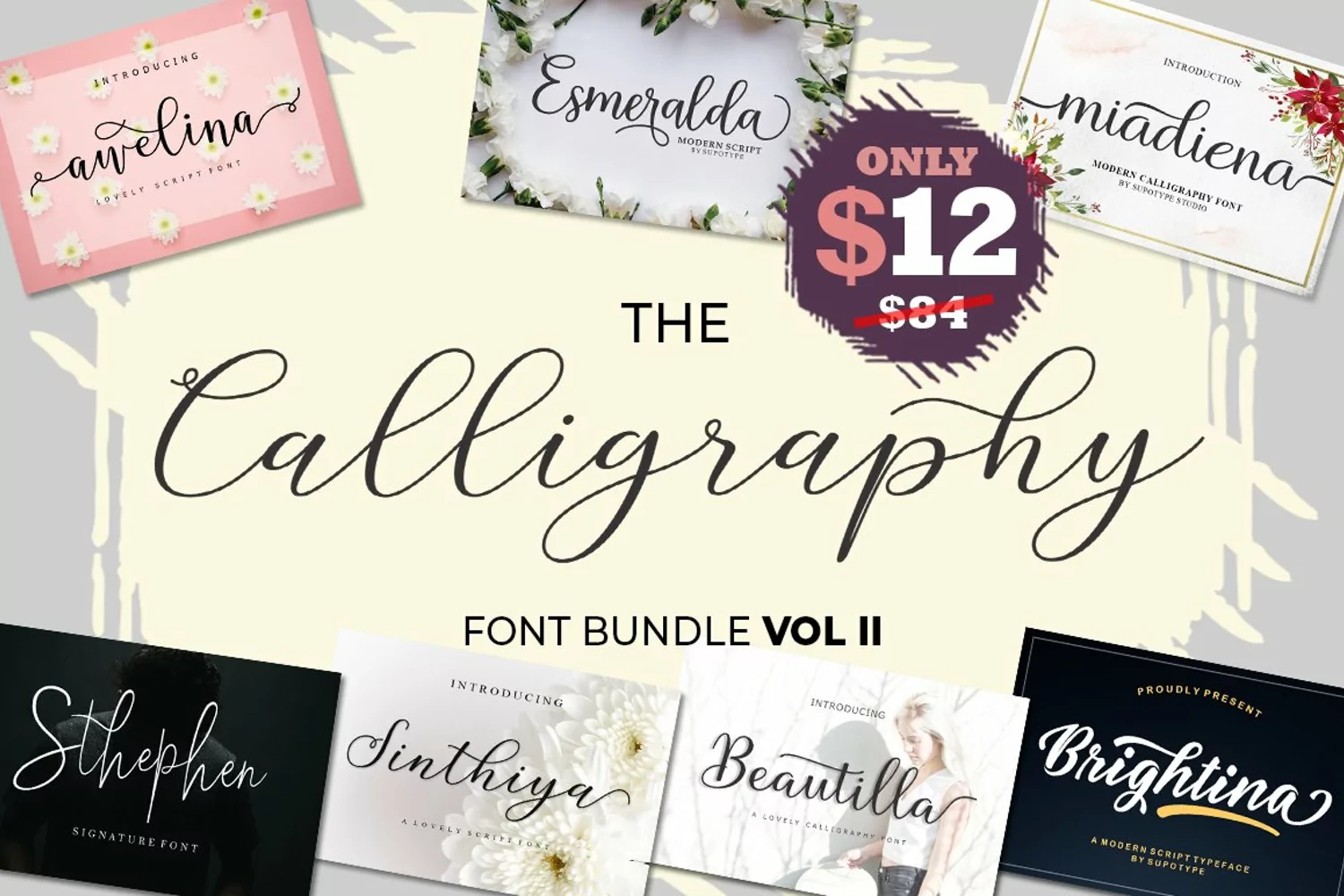
The Calligraphy Font Bundle Vol ll
Introducing The Calligraphy Font Bundle Vol ll ... ... a new bundle with 10 fonts + 1 swash from 7 typeface with an elegant touch, seductive and modern calligraphy scripts.
1. Awelina Script
2. Beautilla Scripts
3. Brightina Script (Regular and Swash Version)
4. Esmeralda Script (Regular, Bold and light Version)
5. Miadiena Scripts
6. Sinthiya Script
7. Sthephen Signature (Regular and Bold Version)